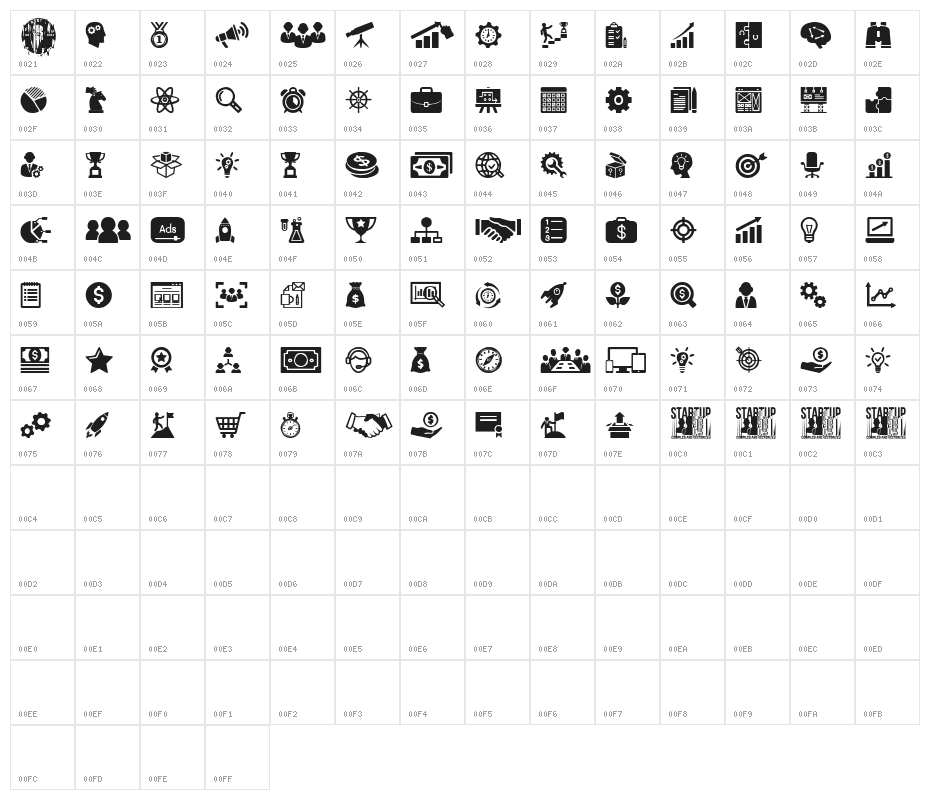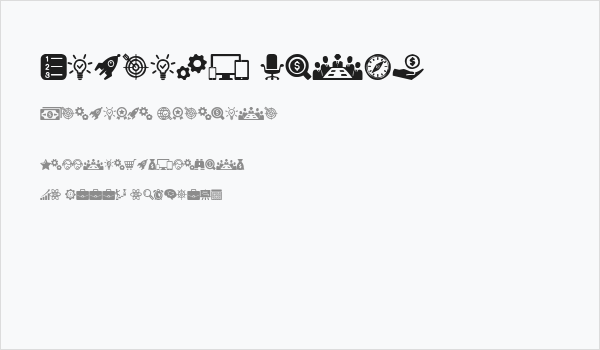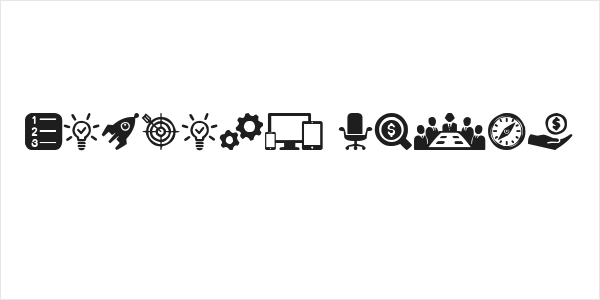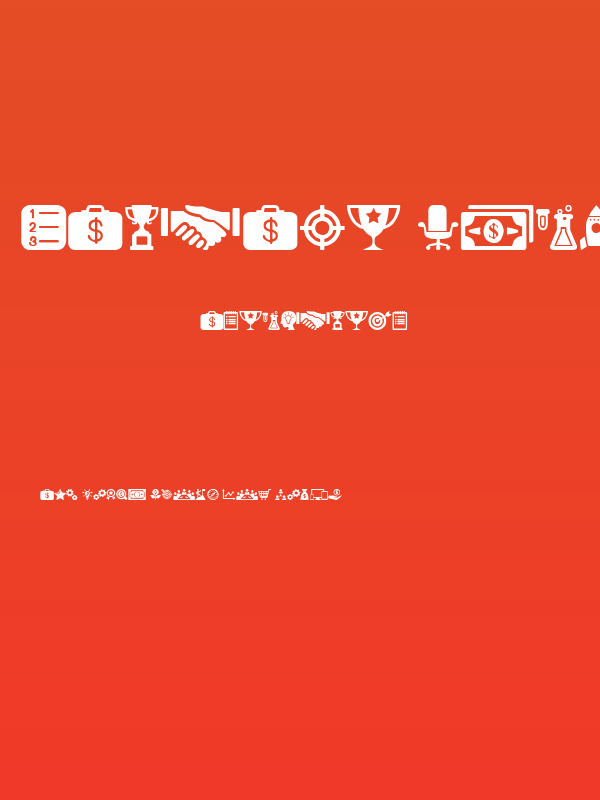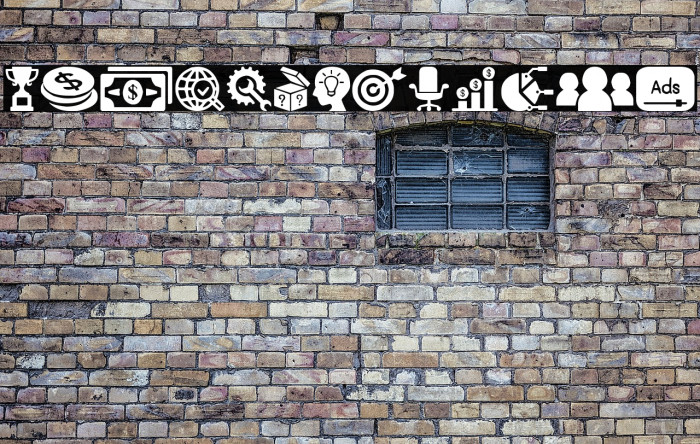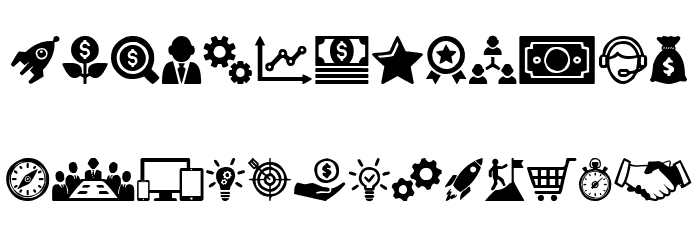
Startup Icons Font
Startup Icons Description
A collection of bold, high-contrast business and startup-themed icons with solid fills and minimal negative space, featuring motifs such as trophies, money, graphs, gears, rockets, and businesspeople. The icons are visually cohesive, using a consistent line weight and geometric shapes, making them easily recognizable and suitable for digital interfaces.
| Overall Style | Modern, Professional, Minimalist |
| Use Case | Icons for UI, presentations, branding, and marketing materials. |
| Proposed Projects | App interfaces, pitch decks, websites, infographics, business cards, startup branding. |